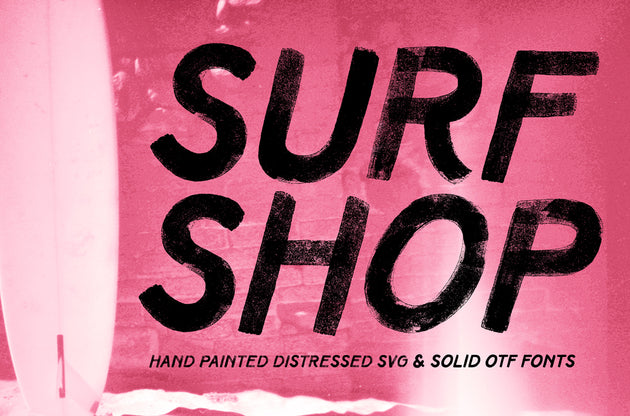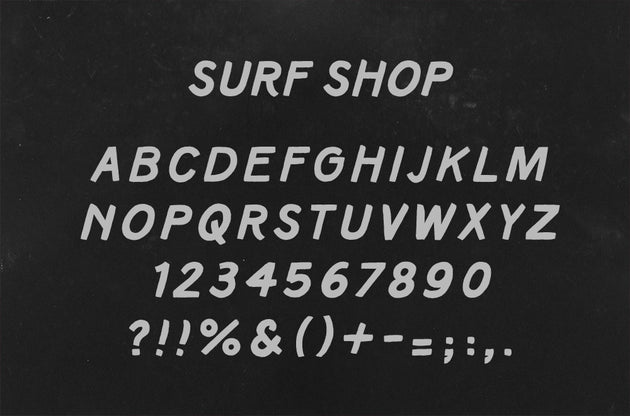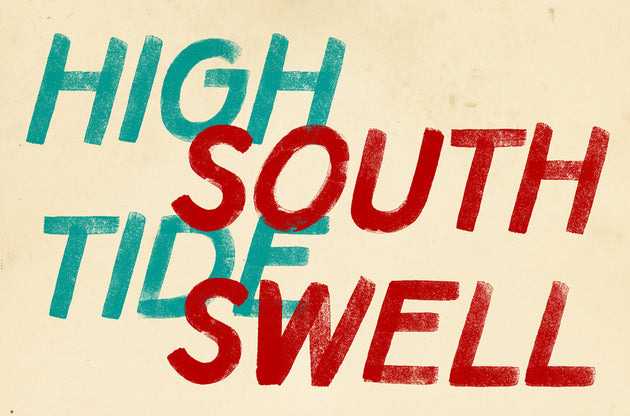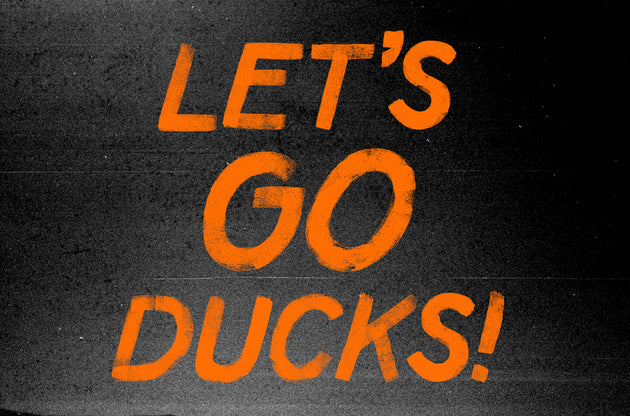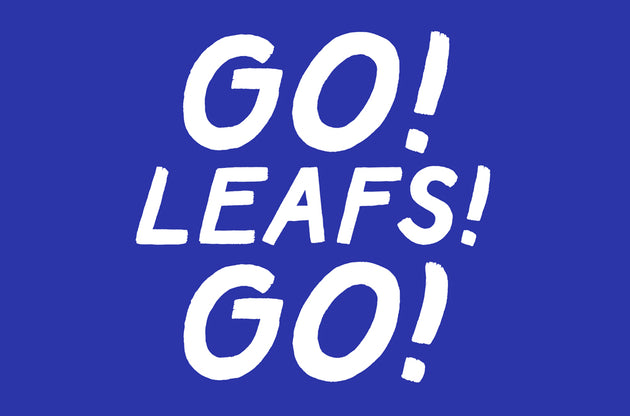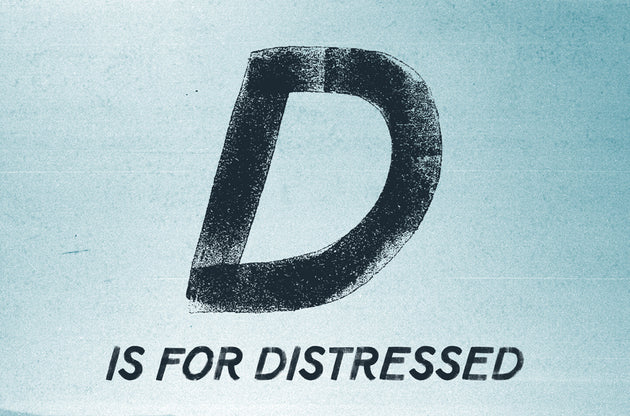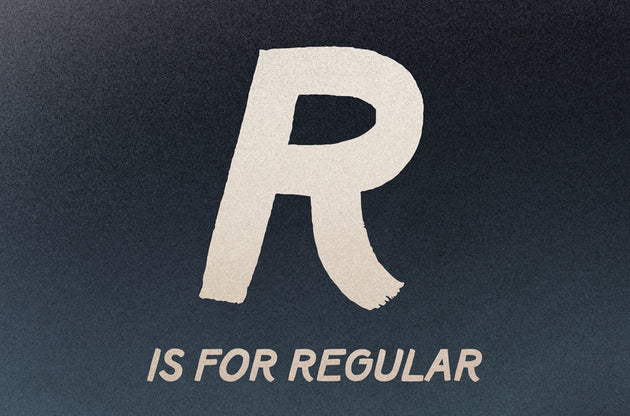
This font looks hand painted because... it was hand painted... outside of a computer.
Surf Shop is a hand painted script font available in 2 unique finishes - Distressed and Regular. This OTF font with an SVG option is a unique take on a vintage style hand painted script.
SVG Fonts, usable in Adobe Photoshop, enable the nuance and texture of a hand lettered type to translate to the font form. The Distressed version of Surf Shop is a great example of how an SVG font can emulate hand painted type. You can use adjustment layers to change the color of the font and adjust the font layer using "multiply" to achieve stunning, true to life, effects!
The Regular version of Surf Shop is a vector OTF font that is infinitely scalable. It still possesses the nuance of a hand lettered font, while working just like any other font in your font library.